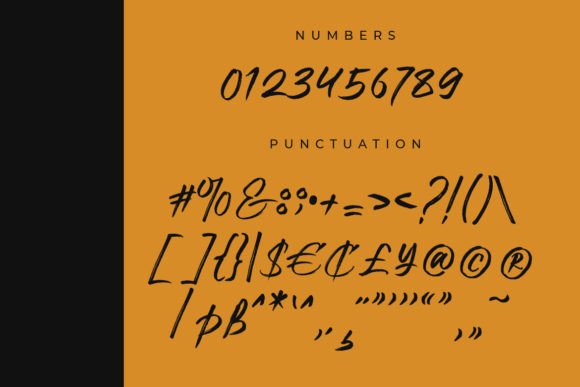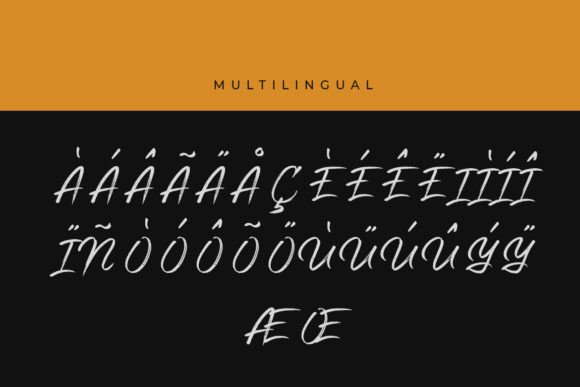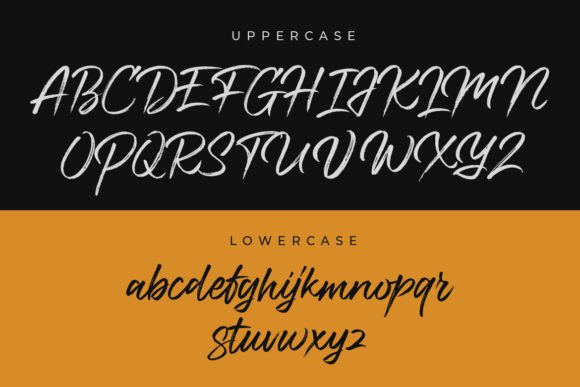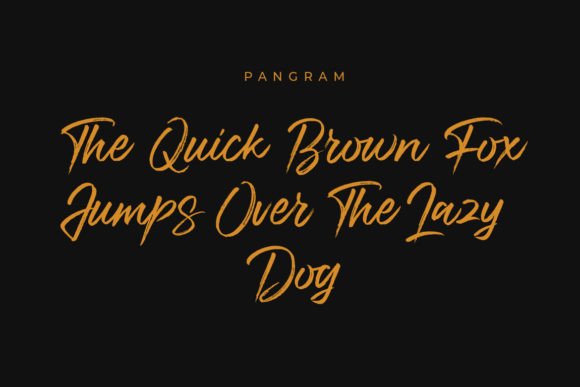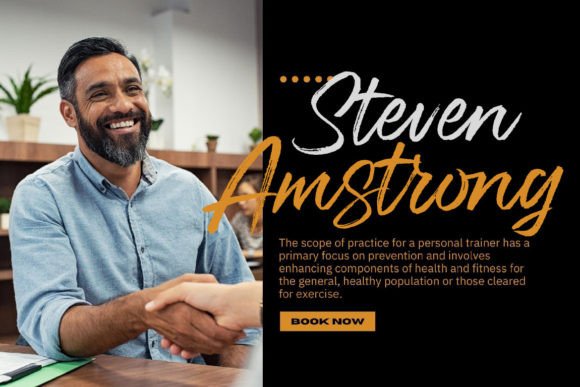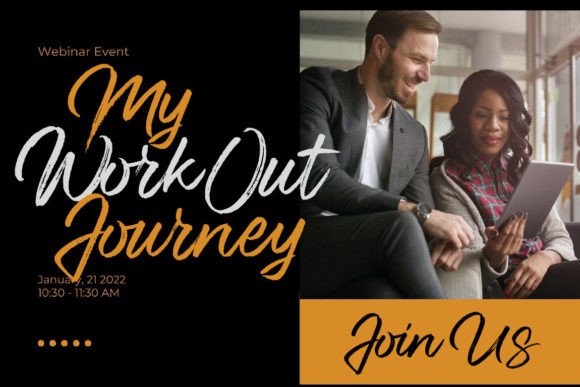
The Perfect Brush for Your Creative Touch
Have you ever stared at a blank page, struggling to find the right words to express your artistic vision? We’ve all been there – the blank page staring back, taunting us to unleash our creativity. But what if you had the perfect tool to bring your ideas to life? Enter the Black Almonds Font, a delightful handwritten brush font that’s about to become your new best friend.
Whether you’re a graphic designer, a writer, or a social media enthusiast, the Black Almonds Font is an incredible asset to your font library. Its casual, playful vibe makes it perfect for a wide range of projects, from blog posts to social media graphics. And the best part? It’s incredibly easy to use, so you can focus on what matters most – creating something amazing.
Key Features of Black Almonds Font
- Font Family: Black Almonds is a unique, hand-drawn font with a mix of modern and vintage elements.
- Unique Characteristics: Features a distinctive, hand-drawn feel with intricate details and subtle texture, making it perfect for creative projects that require a unique touch.
Black Almonds Font Review
Overall, I think the Black Almonds font has some great qualities that make it a solid choice for certain design projects. ✨ One thing that works well is its unique, hand-crafted feel, which can add a lot of personality to a design. The font also has a nice balance of elegance and playfulness, making it suitable for a wide range of applications.
✨ Another advantage of the Black Almonds font is its high level of customizability. It comes in a variety of weights, styles, and combinations, which can be easily mixed and matched to suit the needs of a project. This flexibility makes it a great option for designers who need a font that can adapt to different contexts.
- ⚠️ Limited support for certain languages, which may be a concern for designers who need to create multilingual content.
- ⚠️ Some users have reported issues with font rendering at very small sizes, which can affect readability.
- ⚠️ The font’s unique feel can be polarizing, and some designers may not appreciate its hand-crafted aesthetic.
Overall, the Black Almonds font is a solid choice for designers who need a versatile, customizable font with a unique feel. While it has some limitations, its advantages make it a great option for the right project.
Black Almonds Font is ideal for creative projects, such as:
- Photography and art projects.
Remember to experiment with different font sizes, colors, and styles to get the most out of Black Almonds Font.